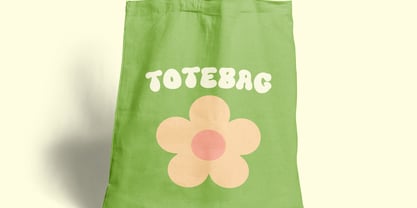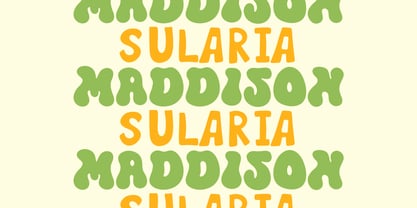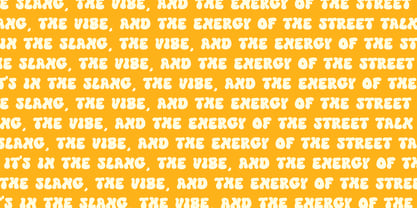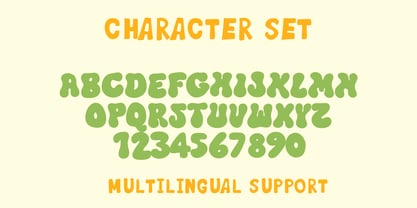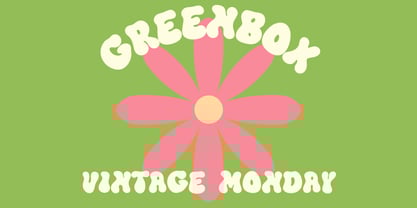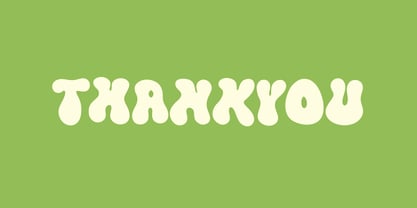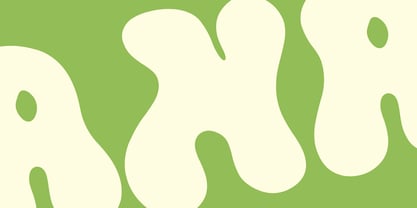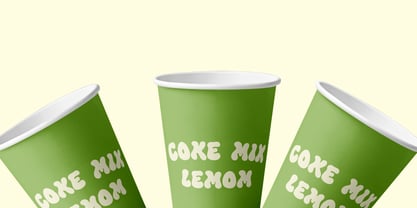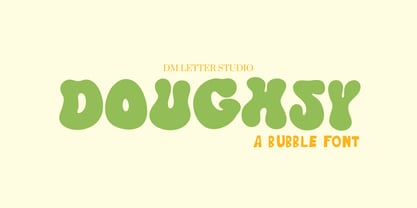
Doughsy
by DM Studio
The Doughsy Font Family was designed by Dimas Prasetyo and published by DM Studio. Doughsy contains 1 styles. More about this family
Meet Doughsy, the Bubble Font Doughsy is a playful bubble display font designed to look soft, thick, and full of cheerful personality. The rounded shapes feel inflated and smooth, almost like lettering made from sweet dough or marshmallow foam. Each character brings a fun and friendly vibe that instantly makes designs look lively and approachable. Use Doughsy for kids' branding, snack packaging, stickers, YouTube thumbnails, birthday designs, playful logos, and colorful social media graphics. As a result, your typography feels fun, bold, and impossible to ignore.   Why Doughsy sells First, Doughsy installs quickly and works smoothly in Canva, Photoshop, and Illustrator. Next, the thick, rounded structure keeps text readable even with bright colors and playful layouts. Then designs come together faster because the bubble style already carries personality without needing heavy effects. Moreover, bubble fonts are popular for kids' products, food brands, and fun digital content. Therefore, Doughsy fits perfectly into cheerful display font collections.   Fast layouts with the Doughsy Font Start with short words or playful headlines to maximize impact. After that, add soft shadows or bright outlines to emphasize the bubble effect. Because the shapes are chunky, keep the background simple so the letters stay clear. In addition, pair it with a clean sans serif for captions or supporting text. Finally, try palettes like pastel pink and cream, mint and white, yellow and orange, or sky blue and purple for a lively visual style.   Creative uses and quick wins Kids' clothing logos and playful brand identities Snack packaging and candy label designs YouTube thumbnails and sticker graphics Birthday invitations and party decorations   What you get Uppercase and lowercase letters Numbers and basic punctuation   Design tips for Doughsy Use Doughsy for headlines, logos, and short playful phrases rather than long paragraphs. Also, try adding soft shadows or thick outlines to enhance the bubble look. For print, use bright high-contrast colors to keep shapes clear. For digital projects, scale the font slightly larger so the rounded forms stay crisp on mobile screens. Finally, combine it with stars, sprinkles, doodles, or simple shapes to strengthen the fun theme.
Designers: Dimas Prasetyo
Foundry: DM Studio